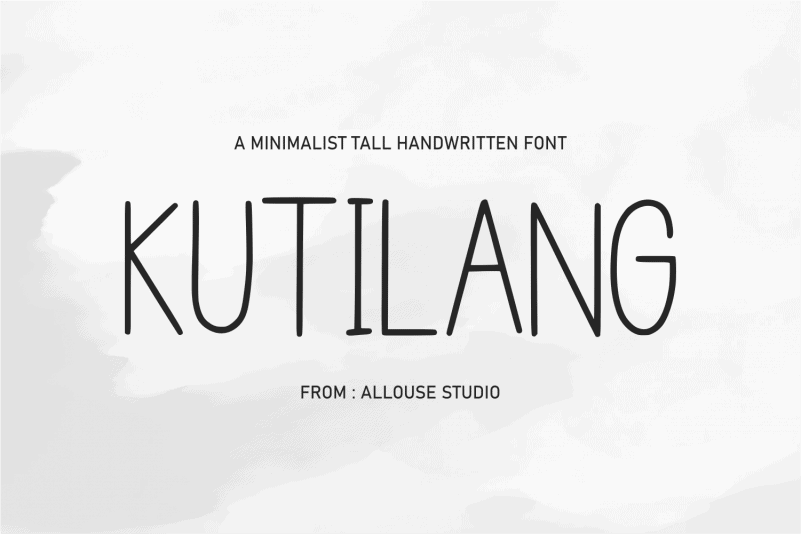
Kutilang Handwritten Font
Proudly Present, Kutilang Handwritten Font.
KUTILANG is a Minimalist Tall Handwritten Font.
It is perfect for product packaging, branding project, megazine, social media, wedding, or just used to express words above the background.